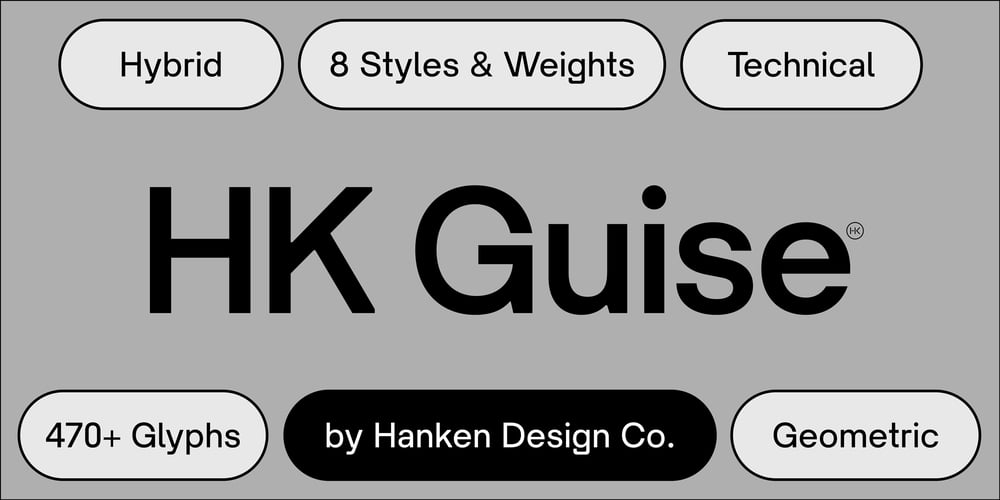
HK Guise Font Family was designed by Alfredo Marco Pradil and published by Hanken Design Co.. HK Guise contains 8 styles and family package options. HK Guise is a typeface with legible characters for maximum readability and legibility—perfect for interface and signage design projects. Inspired by Swiss Typographic design, HK Guise aims to be a standard go-to typeface for the adventurous graphic designer. Guise, defined literally; is an external form, appearance, or manner of presentation, typically concealing the true nature of something.